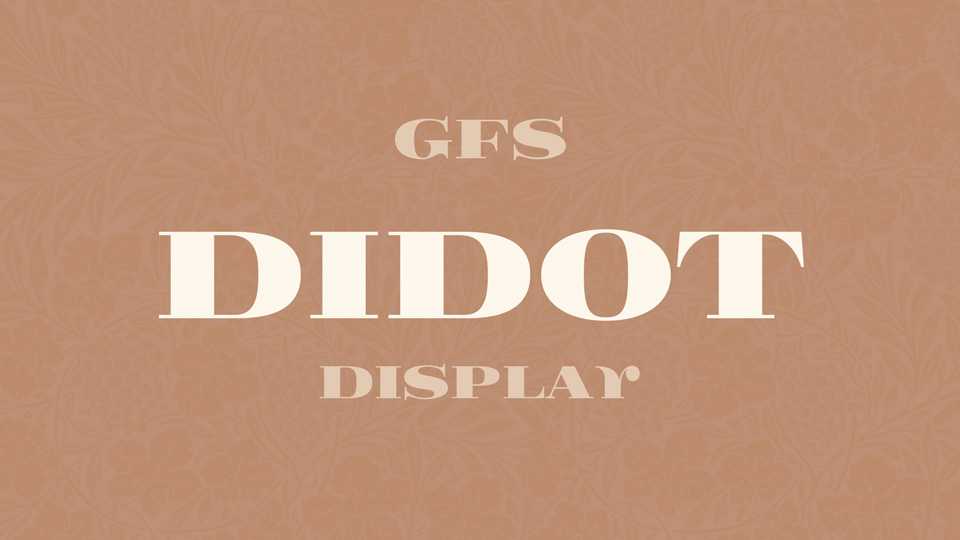
Download GFS Didot Display font, a fat version of the Didot typeface. Found in several publications, mainly as a headline font since the 1840s. At certain occasions Didot Display was used in text columns for newspaper typesetting.